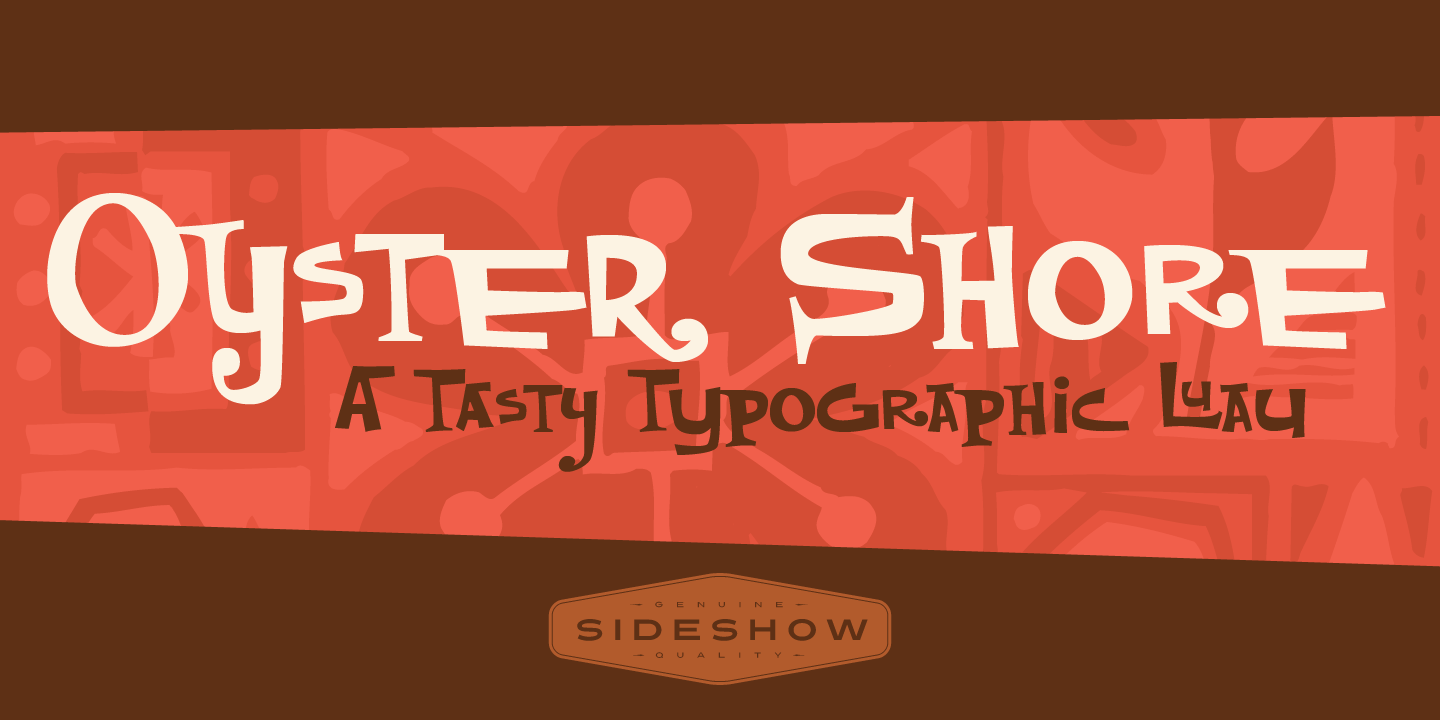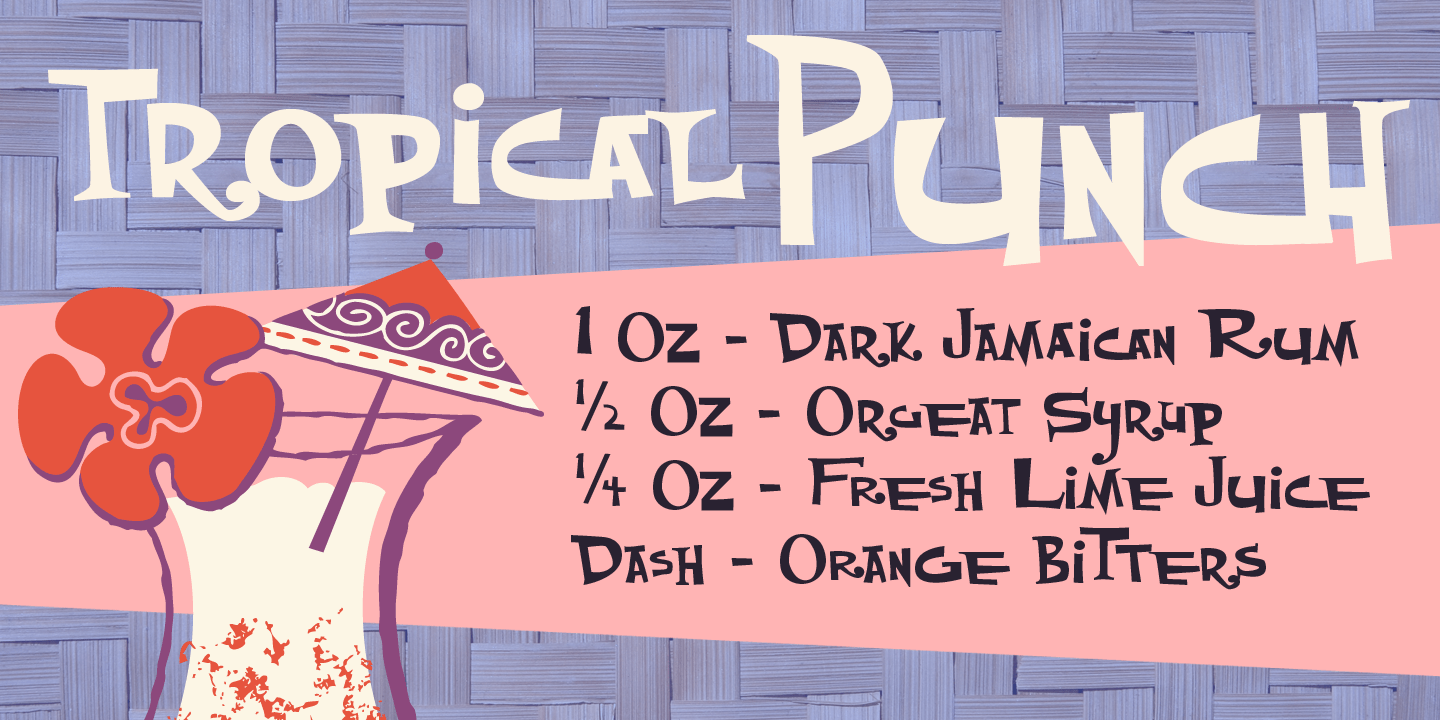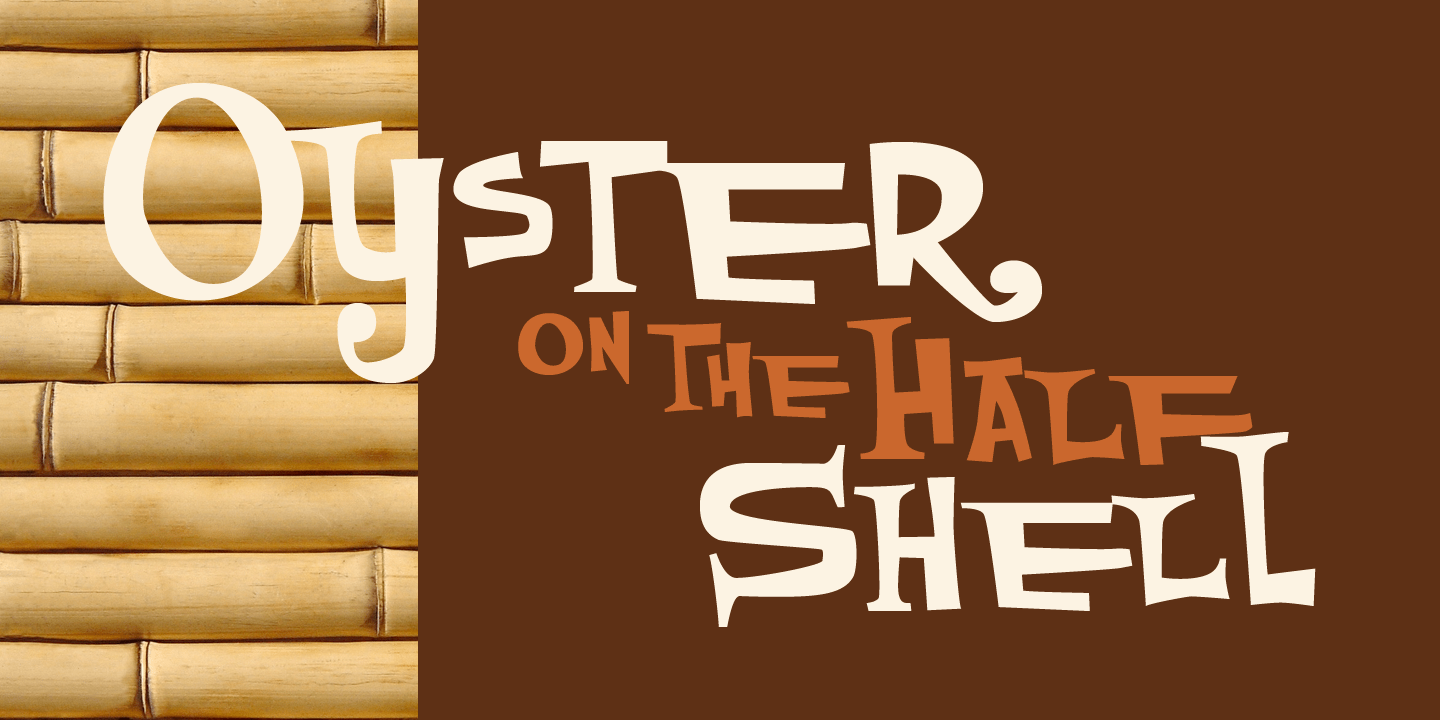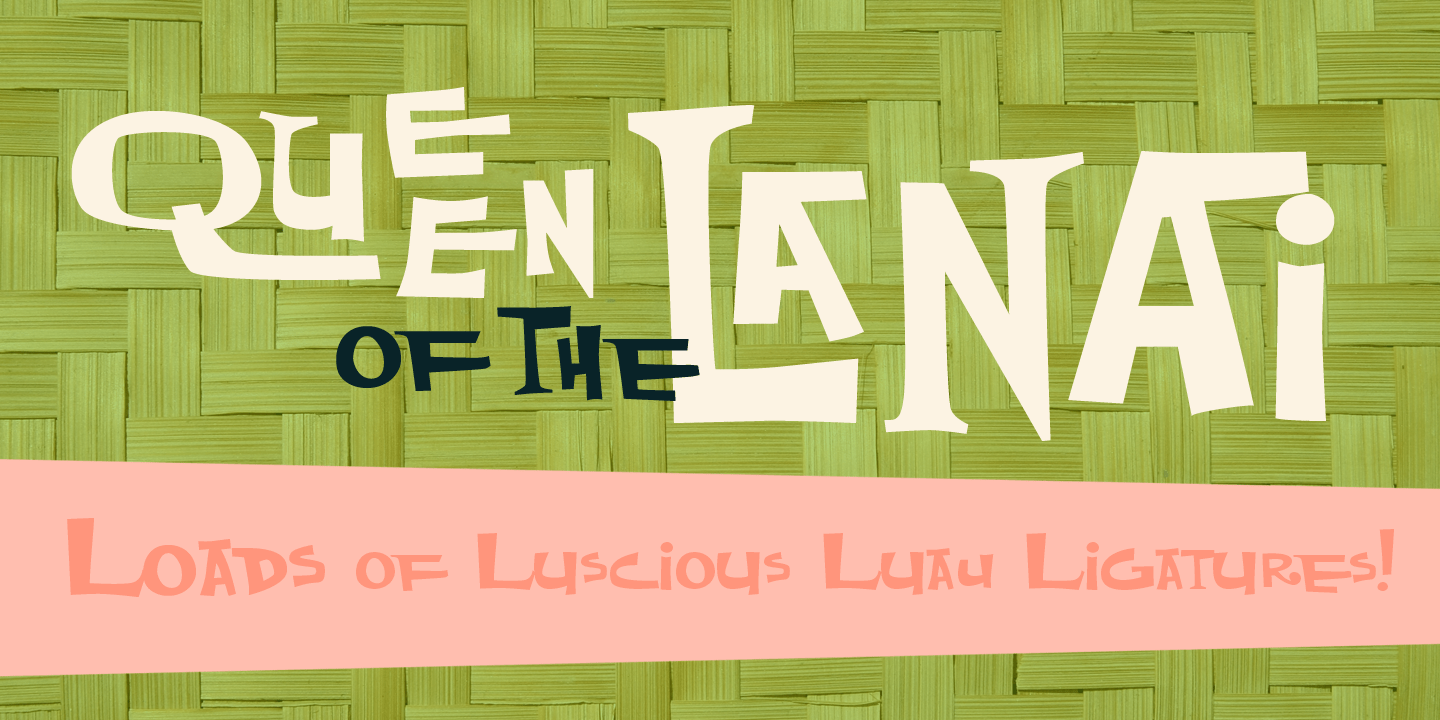
Oyster Shore
Font Family by Sideshow
Aloha! It's time once again for the Sideshow company luau and this year we want you to join us for all the tropical tiki fun. And where do we go for our annual south seas shindig? Why, sunny OYSTER SHORE of course! Feel the warm, abundant alternates squish between your toes and dive head first into the giant foamy wave of ligatures. Just bring your appetite for the Polynesian pig roast and you'll have a wet and wild time at OYSTER SHORE!